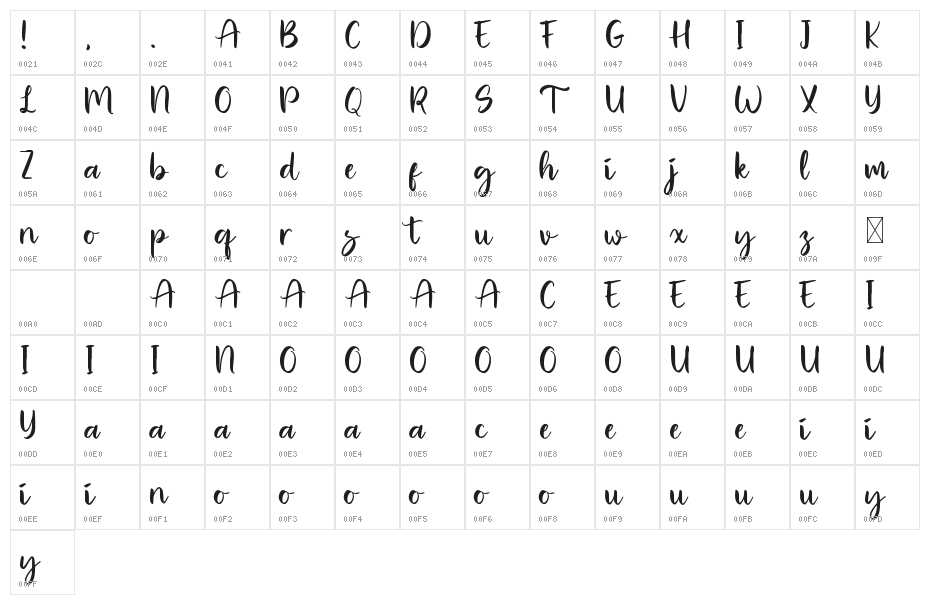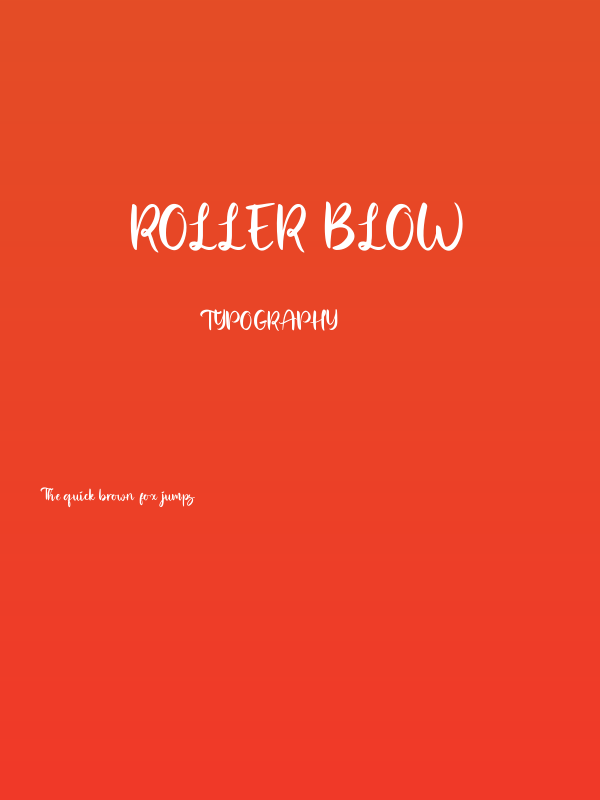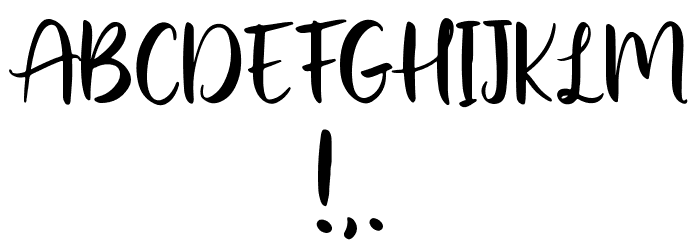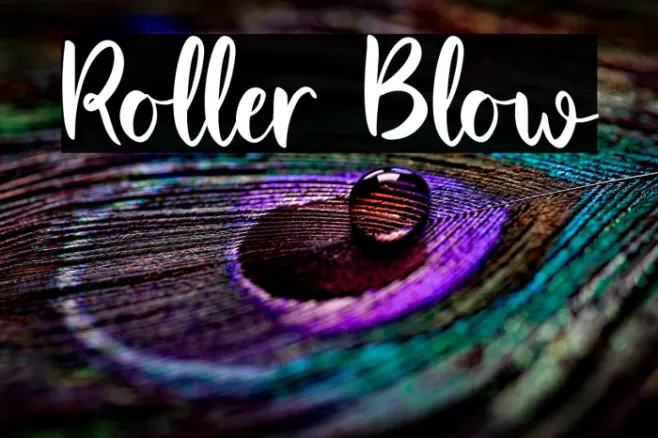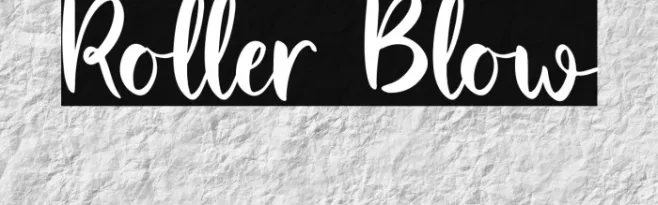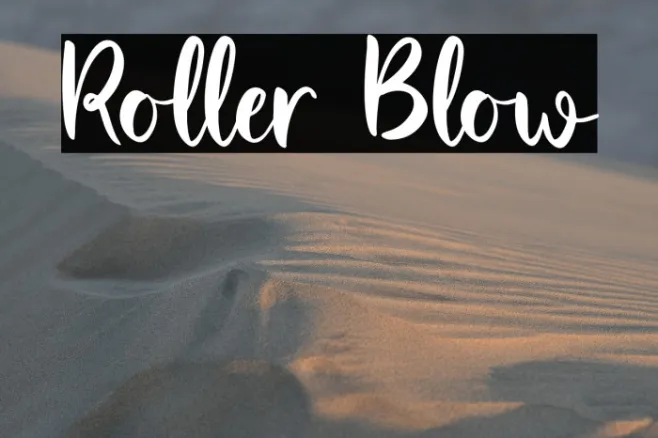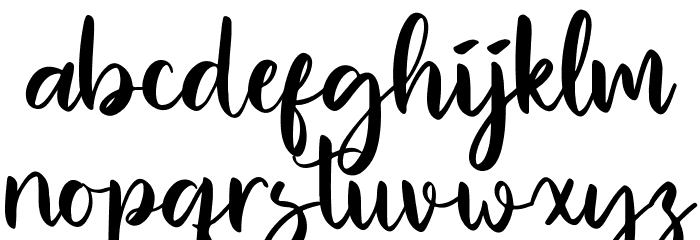
Roller Blow Font
Roller Blow Description
This font features a lively and expressive script style with a handwritten appearance. The characters are fluid and dynamic, showcasing a playful yet elegant design. The uppercase letters are bold and slightly slanted, while the lowercase letters maintain a consistent flow with distinctive loops and curves. The font includes a full set of uppercase and lowercase letters, numbers, and a selection of special characters. Its brush-like strokes give it a casual and artistic feel, making it suitable for creative projects that require a personal touch.
| Proposed Projects | Ideal for greeting cards, invitations, branding, social media graphics, and creative posters. |